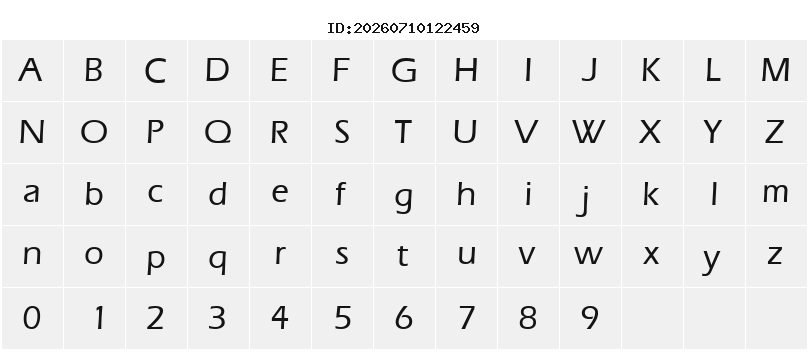
• Designer: SoftMaker Software GmbH
About E820-Sans-Medium.ttf
E820-Sans-Medium.ttf is a modern, elegant sans-serif font designed for ultimate readability and visual harmony. Perfect for branding, headlines, web design, and print materials.